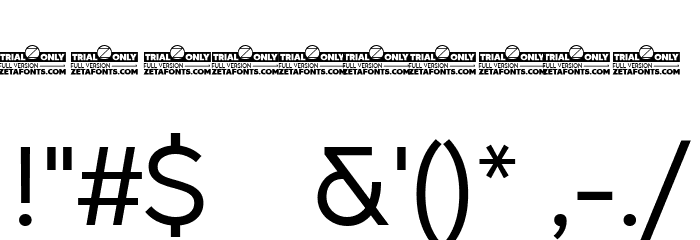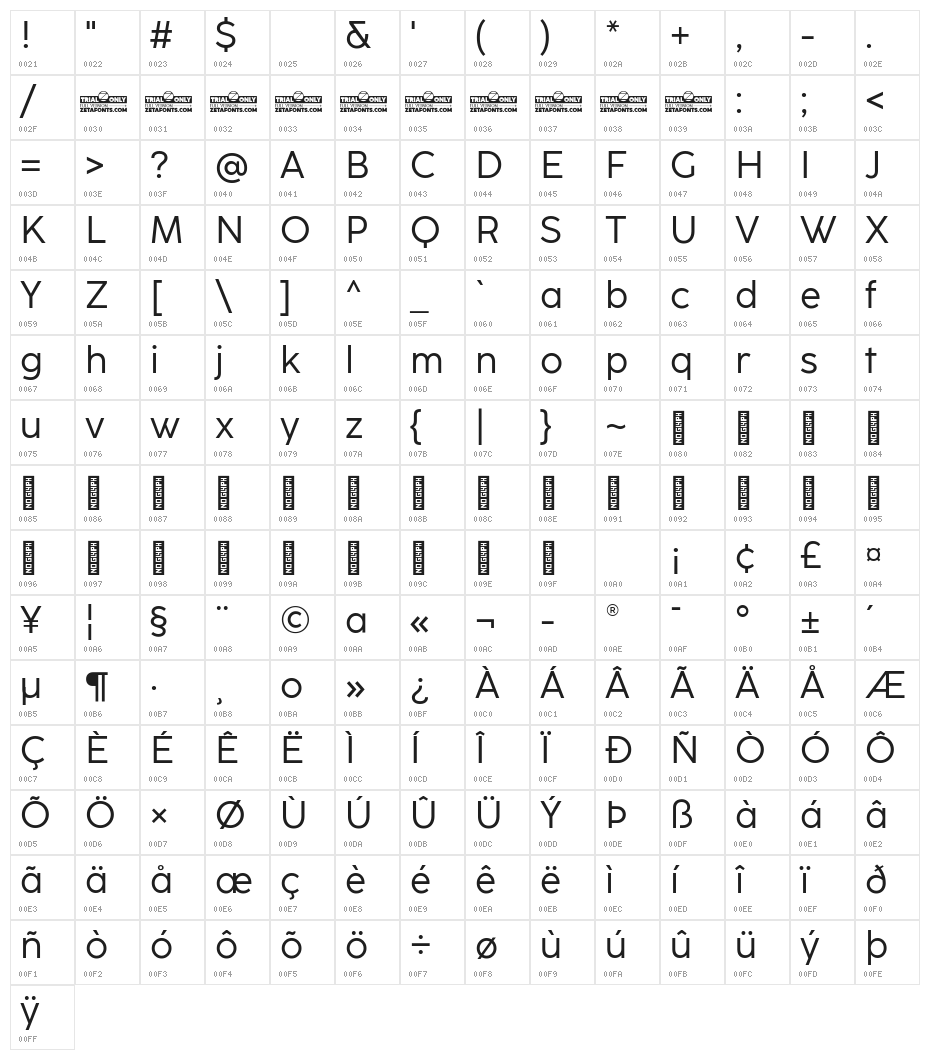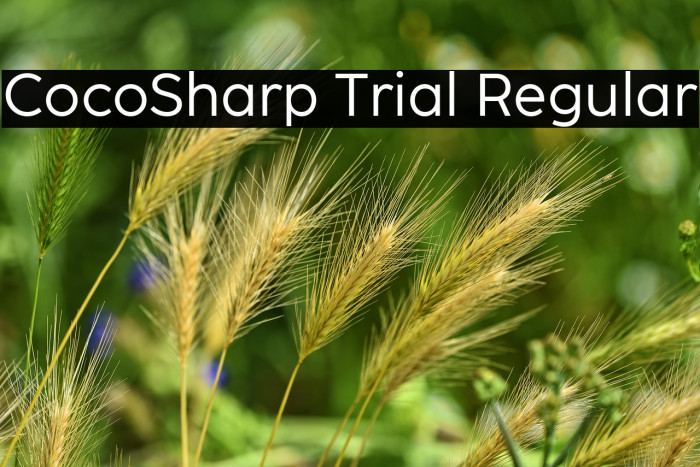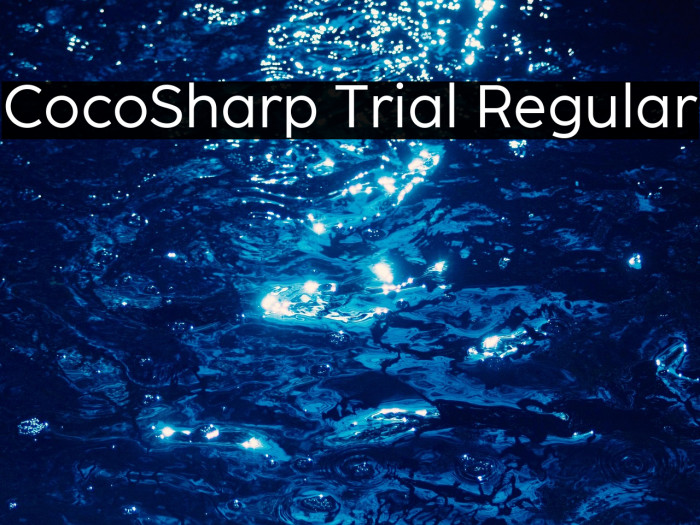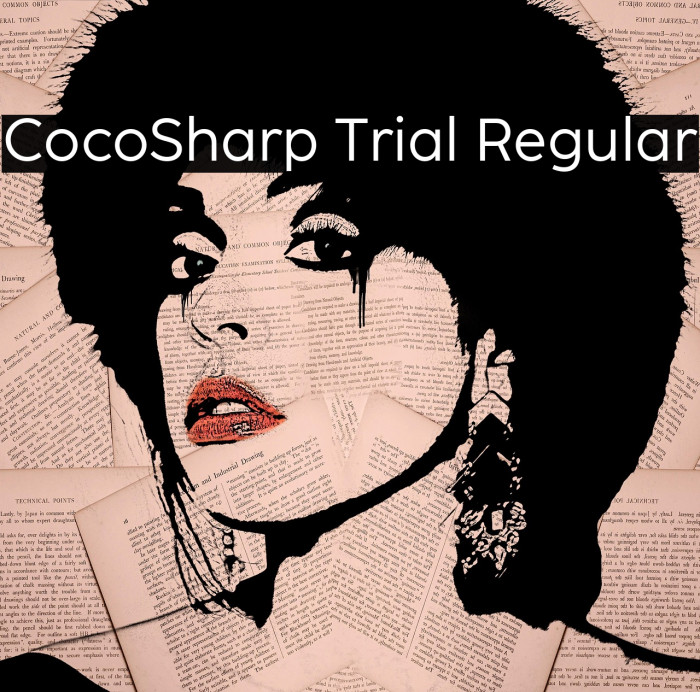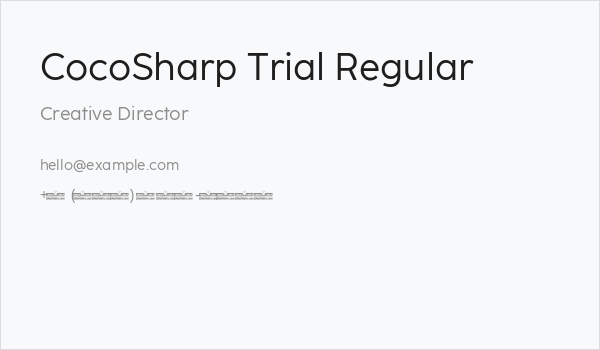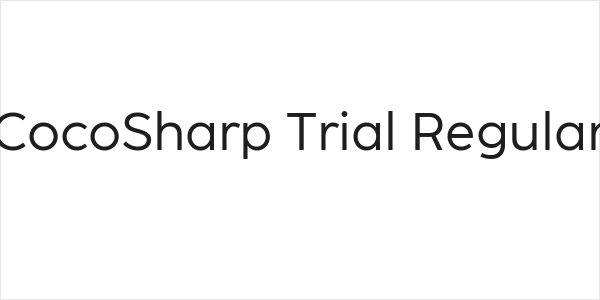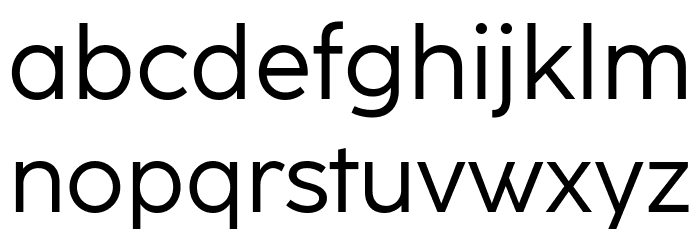
CocoSharp Trial Regular Font
CocoSharp Trial Regular Description
This font features a clean and modern sans-serif design with a geometric structure. The characters are well-balanced, offering a harmonious appearance that is both professional and approachable. The uppercase letters are bold and assertive, while the lowercase letters maintain a friendly and open feel. The numerals and special characters are designed with clarity and simplicity in mind, making them highly legible. This font is versatile, suitable for a variety of design applications, and maintains a consistent weight throughout, ensuring readability across different sizes.
| Proposed Projects | Ideal for branding, web design, advertising, and editorial projects where a clean and modern aesthetic is desired. |